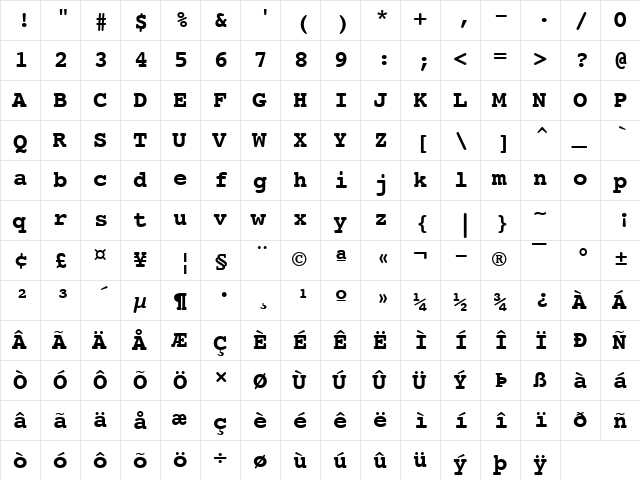
Courier10 Win95BT Bold
Design Context for Courier10 Win95BT Typeface
Courier10 Win95BT uses fixed-width spacing throughout, giving it the structured, systematic character associated with coding environments and technical documentation. The heavy weight commands attention and anchors typographic hierarchies.
Pro Tip: Pair Courier10 Win95BT with a proportional sans for UI contexts where code-style labels and regular body copy need to coexist.